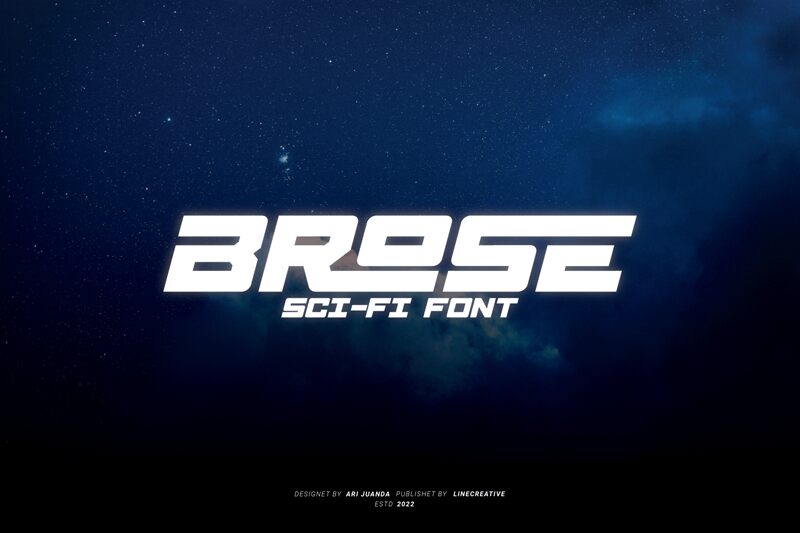
Brose, a bold and expansive font created by Linecreative, exudes a captivating futuristic flair. This display typeface's sharp edges, geometric shapes, and pronounced width command attention, instantly evoking a sense of technological sophistication and avant-garde design. Brose's strong, unwavering presence makes it a standout choice for projects seeking to convey a dynamic, cutting-edge aesthetic.
The font's versatility shines through, allowing it to seamlessly integrate into a wide range of design contexts. Brose's bold and expanded characteristics lend themselves particularly well to attention-grabbing headlines, impactful branding, and dynamic user interfaces. Its futuristic appeal also positions it as an ideal choice for sci-fi themed projects, product packaging, and modern digital experiences that aim to captivate and inspire.